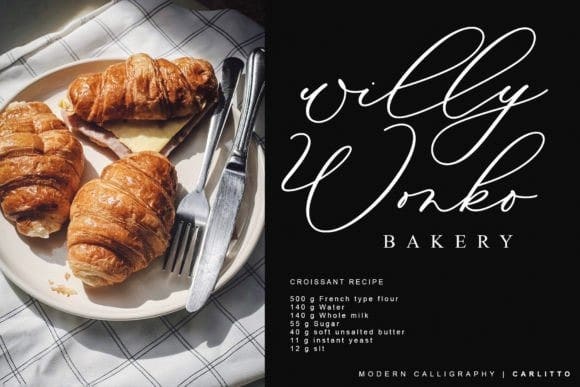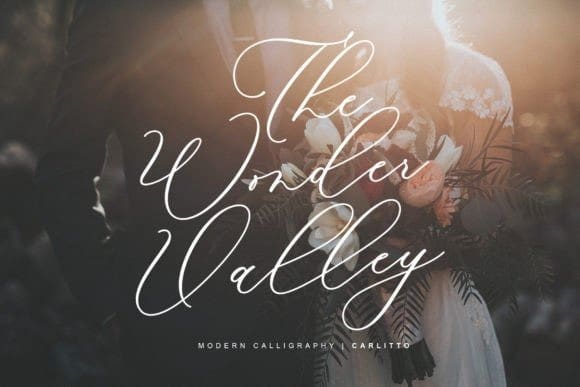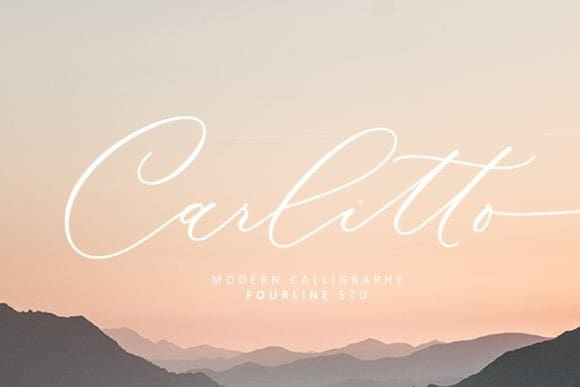
Carlitto Script Font
Carlitto Script Font, is a modern calligraphy font with a natural style. This font is great for your next creative projects such as watermarks on photography, quotes, album cover, logo, business cards, and many other design projects.